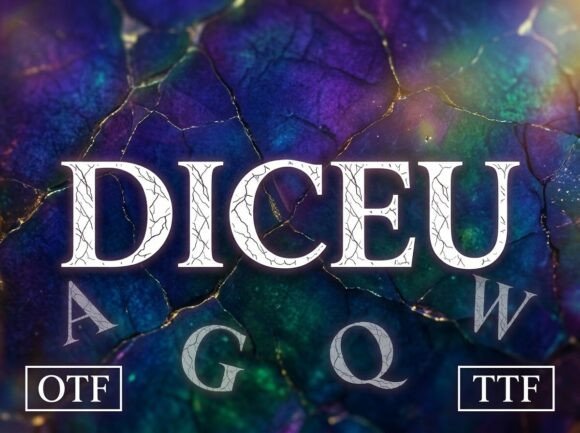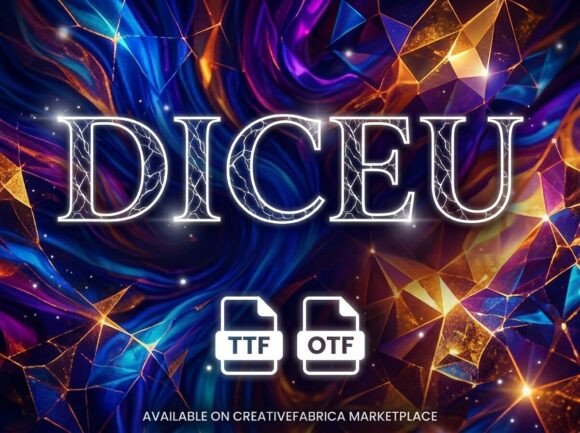
The Ultimate Display Font: Unleashing the Power of Diceu Font
I’ll never forget the moment I stumbled upon Diceu Font while working on a high-end branding project for a luxury client. I was on a tight deadline, and my designer brain was racing to find the perfect font that would make my client’s logo stand out. After hours of scouring the internet, I finally found Diceu Font, and it was love at first sight! ✨ The unique artistic elements and strong visual personality immediately caught my attention, and I knew I had found the perfect fit for my project.
- ✨ Unique artistic elements that make it perfect for creative projects
- ✅ Strong visual personality that grabs attention
- 💼 Versatile enough for bold headlines, artistic logos, and creative packaging
- 👍 Maintains a professional and polished finish
⚠️ One thing to note is that Diceu Font is an ALL-CAPS (Uppercase Only) display typeface, which means it doesn’t include lowercase letters. This might be a limitation for some projects, but it’s actually a deliberate design choice to make every letter a work of art.
🤔 Another thing to consider is that the font is specifically designed for high-impact headlines, logos, and decorative initials, so it might not be the best fit for body text or long-form content.
While the true story behind Diceu Font’s creation is unknown, it’s easy to imagine that the designer was inspired by the world of art and luxury. Perhaps they wanted to create a font that would make every letter a work of art, or maybe they were driven by a passion for creative expression. Whatever the inspiration, Diceu Font is a stunning decorative display font that’s sure to turn heads.
Q: Is Diceu Font suitable for body text?
A: No, Diceu Font is specifically designed for high-impact headlines, logos, and decorative initials, and is not recommended for body text or long-form content.